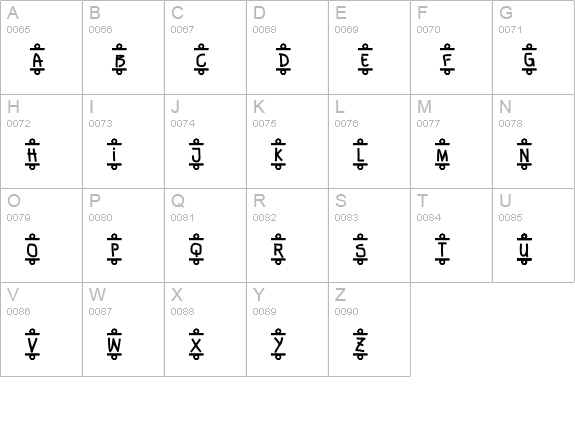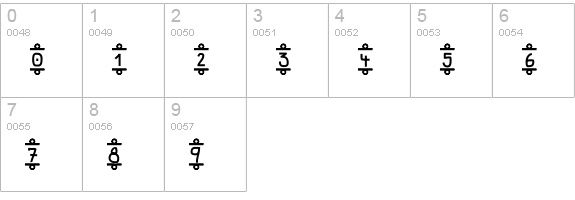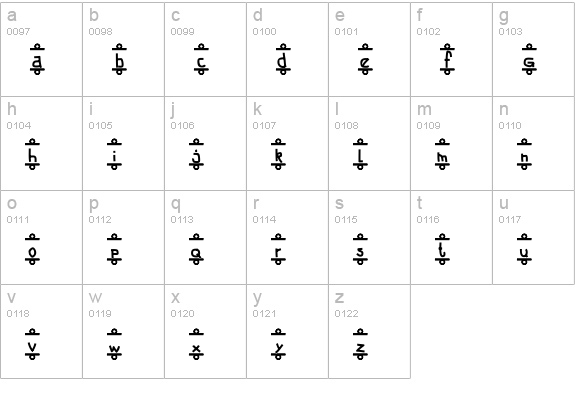
Banner Font Details
Introducing the captivating and versatile Banner font - a stunning display typeface designed to make your designs truly stand out. With its bold and eye-catching letterforms, Banner font is perfect for creating attention-grabbing banners, headlines, posters, and more. This font exudes a sense of strength and elegance, making it ideal for a wide range of design projects. The best part? Banner font is available for free download at FontsMarket.com. This means you can easily access this stunning typeface and incorporate it into your designs without any cost. Don't miss out on the opportunity to enhance your projects with the striking visual impact of Banner font. Download it today and elevate your design game to new heights!